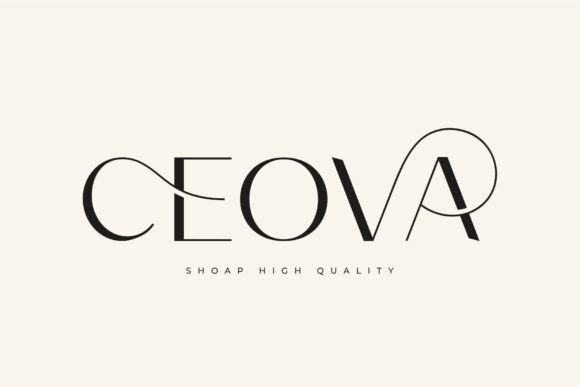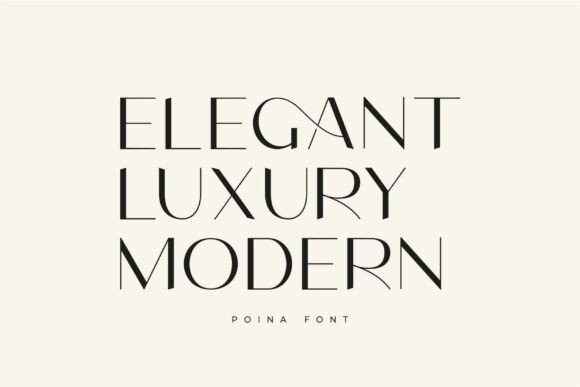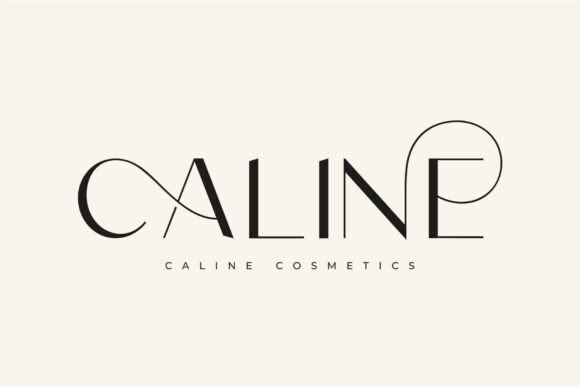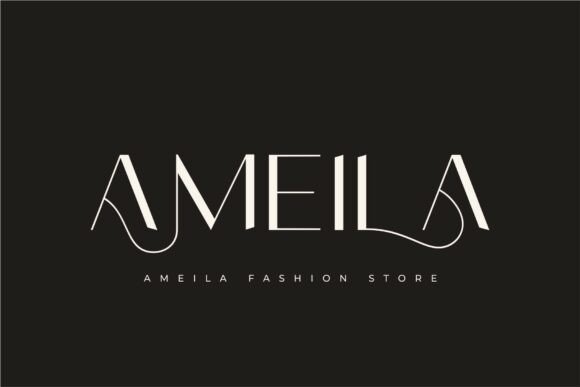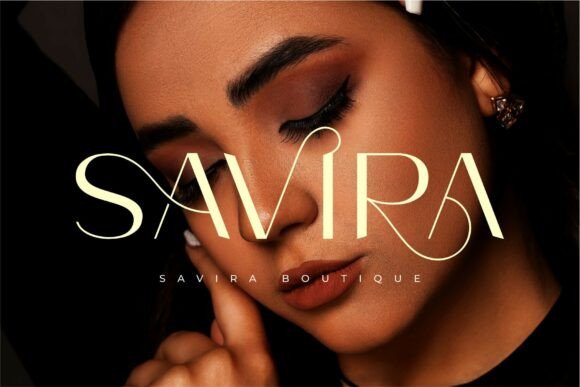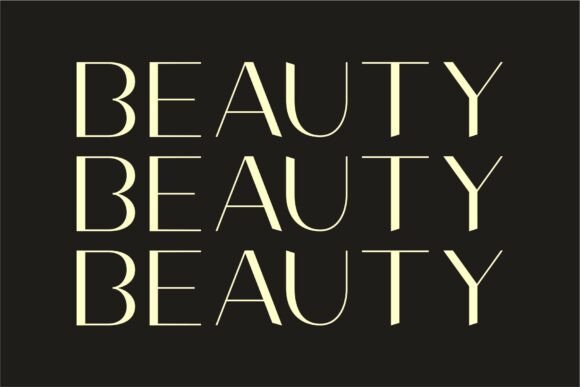
Introduction to Poina Font
Have you ever stared at a blank canvas, waiting for inspiration to strike? For designers, those moments of creative block can be the most frustrating. But what if I told you that the perfect solution is just a download away? Introducing the Poina Font, a modern and stylish serif font that’s about to revolutionize your design projects.
With its sleek design and ligature features, the Poina Font is a game-changer for any creative project. Whether you’re working on a high-end cosmetics brand or a simple social media campaign, this font is sure to elevate the quality of your designs. As a valuable design resource, the Poina Font is perfect for logos, wordmarks, magazines, and more. And the best part? You can download it for free, complete with a transparent background.
Key Features of Poina Font
- High-quality design resource with a unique, creative aesthetic
- Perfect for use in a wide range of creative projects, from logos to social media graphics
- Unique characteristics include a modern, minimalist design and a wide range of font styles
Honest Review: Poina Font
I recently had the chance to work with the Poina Font, a free design resource that caught my attention. As a designer, I’m always on the lookout for high-quality fonts to enhance my creative projects.
The Poina Font did not disappoint. It’s a beautiful, elegant font that works well for titles, headings, and even body text. ✨ One of the standout features of this font is its versatility – it pairs well with a variety of other fonts and styles, making it a great addition to any design project.
Some of the key benefits of the Poina Font include:
- High-quality design with crisp, clear lines
One potential limitation of the Poina Font is its limited character set. While it’s perfect for titles and headings, it may not be sufficient for longer blocks of text. ⚠️ This is something to consider when deciding whether to use the font for a specific project.
Overall, I’m impressed with the Poina Font and would definitely recommend it to designers looking for a high-quality, versatile font for their creative projects.
Tips for Getting the Most Out of Poina Font
Experiment with different font sizes and colors to create a visually appealing design. Combine Poina Font with other design elements, such as images and shapes, to add depth and interest.
Poina Font is ideal for various creative projects, including:
- Business presentations
- Graphic designs
- Wedding invitations